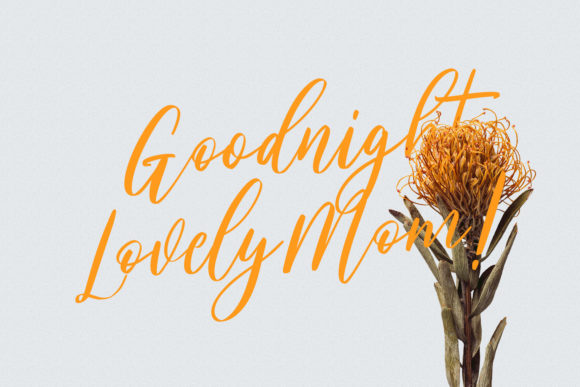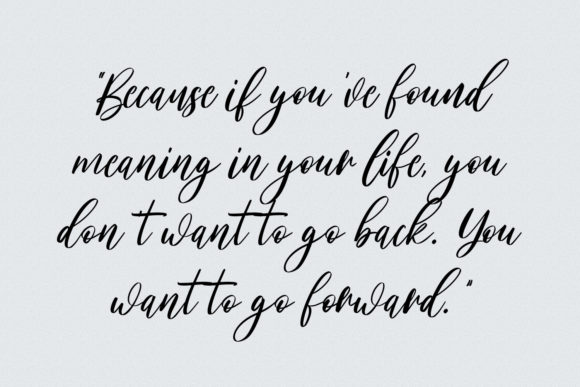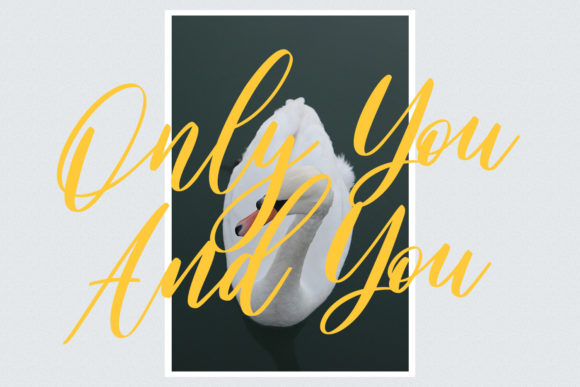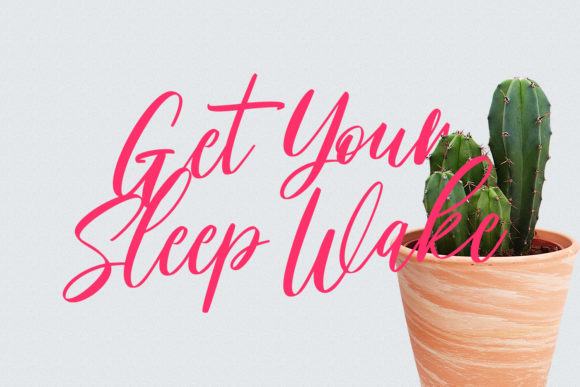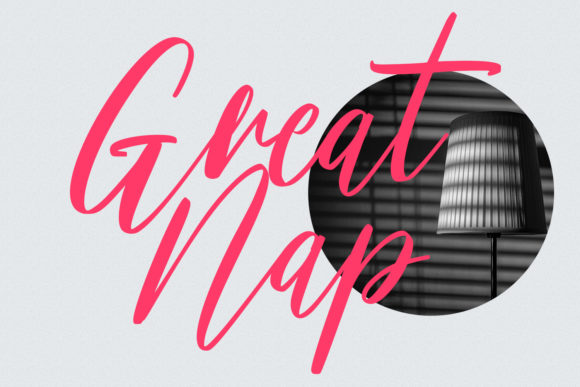
About Mattswans Script Font
Mattswans Script is a beautiful and flowing script font. It works lovely on a variety of design ideas, related to letters, cards or pretty much any design that you wish to make.